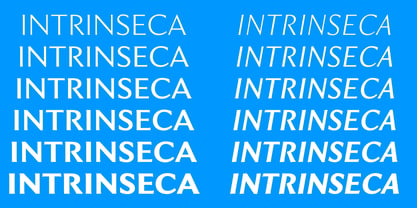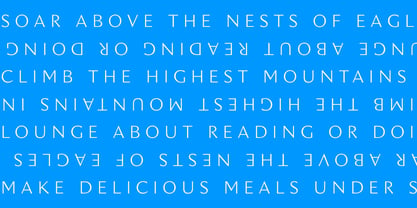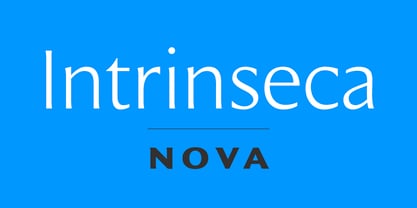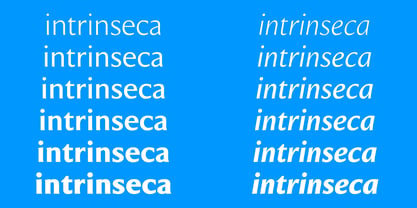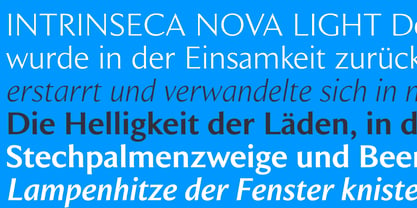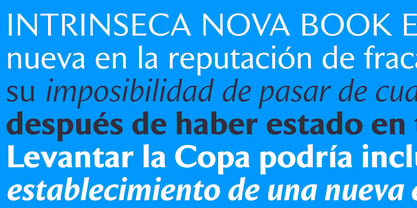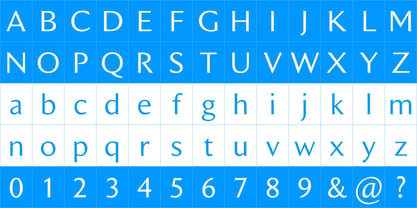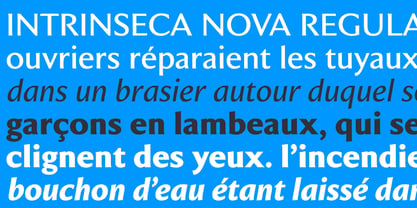
Intrinseca Nova
by AVP
The Intrinseca Nova Font Family was designed by Nicholas Garner and published by AVP. Intrinseca Nova contains 12 styles and family package options. More about this family
Intrinseca Nova is an updated version of Intrinseca, a popular AVP font released in 2011. Intrinseca was modelled on traditional serif letterforms but with low-contrast stroke widths and a generous x-height. The family has a clean appearance and excellent readability. Six weights plus italics, small caps and extended language support make Intrinseca ideal for magazines, books and web – wherever distinctive headings and a variety of text options are required. Intrinseca Nova provides a further increased character set, better Unicode mapping, updated metrics and additional OpenType features.
Designers: Nicholas Garner
Foundry: AVP